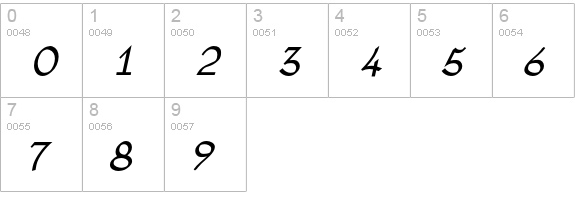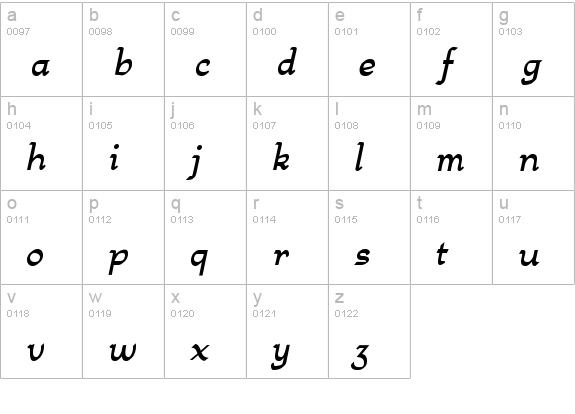
NympheBoldItalic Font Details
Introducing NympheBoldItalic font - a stunning and elegant typeface that exudes sophistication and flair. With its bold yet graceful letterforms, NympheBoldItalic is perfect for adding a touch of luxury to any design project. The italicized style adds a touch of dynamic movement to the text, making it stand out from the crowd. What's even better is that NympheBoldItalic is available for free download at FontsMarket.com. This means you can elevate your designs without breaking the bank. Whether you're working on a branding project, editorial design, or any other creative endeavor, NympheBoldItalic is sure to make a bold statement. Download it today and unleash your creativity with this exquisite font.